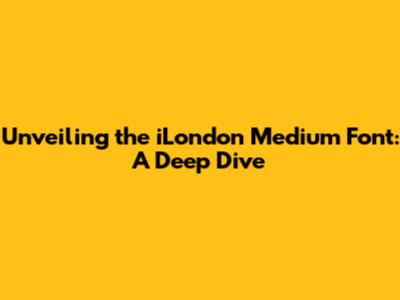
Unveiling The ILondon Medium Font: A Deep Dive
Hey guys! Ever stumbled upon the iLondon Medium font and wondered what the buzz is all about? Well, you're in the right place! We're diving deep into everything you need to know about this typeface – its characteristics, its uses, and why it's a solid choice for your design projects. This isn't just a dry rundown, either. We'll explore the font's personality and how it can bring your creative visions to life. So, buckle up, and let's get started on this iLondon Medium font adventure!
Exploring the Anatomy of the iLondon Medium Font
Let's get down to the nitty-gritty, shall we? The iLondon Medium font boasts a unique blend of elegance and readability. Its design is typically characterized by a clean and modern aesthetic, making it incredibly versatile. Think about those sleek, modern websites or the polished brochures that catch your eye. Chances are, a font like iLondon Medium is behind the scenes, working its magic. The font's strokes are often well-balanced, providing a great viewing experience, offering excellent legibility even at smaller sizes. The spacing between letters and words is carefully calibrated, so the text flows smoothly, making it easy on the eyes. This font's medium weight strikes a perfect balance between boldness and subtlety. It's not too heavy to overwhelm the reader, nor is it too light to be lost in the background. It's this versatility that allows iLondon Medium to adapt seamlessly to various design contexts, from digital interfaces to print materials. The overall feel is contemporary, giving off an air of sophistication and professionalism. Its design language is often described as friendly and approachable, making it a great choice for brands that want to create a positive user experience. The iLondon Medium font is available in multiple weights. This flexibility gives designers the freedom to emphasize specific elements. Imagine creating a layout where you want a particular heading to pop or a specific call to action to grab the reader's attention. With the different font weights, you have that flexibility at your fingertips. From headlines to body text, this font's versatility ensures consistency and a professional look. It can be used in a variety of design contexts. For example, in the realm of branding, it can be applied to logos, business cards, and websites. In publishing, the font can enhance the readability of books, magazines, and newspapers. The possibilities are really only limited by your imagination. The font's design often incorporates subtle details, like the curve of the "g" or the angle of the "e". These subtle features contribute to the overall visual appeal, making iLondon Medium a standout choice. In this way, the font isn't just about conveying information; it's about crafting an immersive visual experience for the user.
Characteristics and Design Elements
Alright, let's zoom in on those finer details. When you inspect an iLondon Medium font, you'll likely notice the attention to detail that sets it apart. The letterforms are often designed with clean lines and balanced proportions, giving it a modern feel. The "x-height" (the height of the lowercase "x") may be slightly higher than usual. This design choice often improves readability, especially in smaller sizes. The font's design may incorporate subtle variations in stroke weight. This detail adds visual interest without compromising clarity. A well-designed font avoids being too uniform. It will likely include variations in the curves and angles of each character. These subtle differences give the font its unique personality. The spacing between letters, or "kerning", is carefully adjusted to optimize readability. Good kerning is crucial to prevent words from looking cramped or too spaced out. A professional iLondon Medium font will pay close attention to this. Designers of iLondon Medium often put care into the design of punctuation marks. Each period, comma, and semicolon is styled to complement the letterforms. The result is a cohesive and harmonious design. If the font supports it, you might find a comprehensive set of special characters. These might include ligatures (where two or more letters are joined together), alternative glyphs, and symbols. These enhance the font's versatility and give designers more creative control. The overall design philosophy is aimed at combining functionality with aesthetics. The goal is to provide a user-friendly and visually appealing typeface. The result is a versatile font that can work well in many applications. With its attention to detail and modern appeal, the iLondon Medium font offers both readability and visual interest.
Where Can You Use the iLondon Medium Font?
So, where does this awesome font fit in? The iLondon Medium font is a true chameleon, ready to adapt to various design environments. It's a great choice for both digital and print applications. From websites and apps to brochures and posters, this font has you covered. Let's break it down, shall we?
Digital Design Applications
For digital designs, the iLondon Medium font shines on websites, apps, and user interfaces. Its clean design and readability make it perfect for displaying content on screens. The font is easily scalable, ensuring that your text looks crisp and clear regardless of the screen size. The font can also be easily integrated into user interface designs. The font's versatility lets you apply it in headlines, body text, or navigation menus, maintaining a consistent brand identity. When it comes to mobile apps, the font helps ensure a smooth user experience. The font will maintain its readability even on smaller screens. This quality makes it a great choice for apps that prioritize user engagement. The font's modern aesthetic works well with contemporary design trends. If you're looking for a font to match your website's clean, modern look, iLondon Medium is a perfect choice. The font is ideal for displaying content like blog posts, articles, and product descriptions, offering clarity and readability. Many designers also leverage this font for designing email campaigns, ensuring that your messages appear professional and easy to read across various email clients. With its focus on legibility and visual appeal, the iLondon Medium font is an excellent choice for a wide range of digital design projects.
Print Design Applications
Now let's talk print. The iLondon Medium font isn't just for screens; it's a solid choice for print materials as well. Its crisp and clean design translates beautifully onto paper, making it perfect for brochures, magazines, and other printed assets. Imagine designing a brochure. The font’s readability ensures that your message is easy to understand. The iLondon Medium font will make a great impression on the viewer. If you are creating a magazine layout, the font's clear design makes it suitable for both headlines and body text, keeping your content organized and reader-friendly. Consider the use in posters and advertisements. Its versatility allows you to make your text pop or to create a more subtle design, depending on your needs. The font also provides an excellent choice for corporate stationery. Using it for business cards, letterheads, and other business materials enhances your brand's image. In terms of books, it is an excellent font to use to make reading easy for the user. With its elegant and legible design, the iLondon Medium font provides a classic and professional look. Its versatility and adaptability mean it can work across different projects. Its ability to create a clear and cohesive design makes it an excellent choice for print design.
Tips for Using the iLondon Medium Font Effectively
Alright, let's talk about making the most of the iLondon Medium font. Knowing how to effectively use it can take your designs from good to amazing. Let's get some tips!
Pairing with Other Fonts
One of the most important things is pairing fonts. You want to create a harmonious visual experience. The iLondon Medium font pairs well with a variety of other fonts. It's often used with sans-serif fonts to create a modern and clean design. These combinations work very well in headlines and body text. For a more sophisticated look, pair the font with a classic serif font. This combination adds a touch of elegance. You should consider the mood you are trying to create. If you're going for a bold and dynamic look, try pairing the font with a bold sans-serif font. If you want a more subtle look, pair it with a light or thin font. Ensure that the fonts complement each other. Avoid pairing it with fonts that are too similar or compete for attention. Make sure the fonts are different enough to be distinguishable. Test out your pairings to see what looks best. Experiment with the different weights and styles of the iLondon Medium font to create a balanced design.
Color and Contrast
Color and contrast are key. The iLondon Medium font works well with a wide range of colors. But the contrast between the text and the background matters the most. You want to make sure the text is readable. When placing the font on a light background, use a dark color for the text, and vice versa. This will increase readability. Make sure to consider your target audience. Your color choices should align with your brand's identity and resonate with your audience. For example, a minimalist design might use a black font on a white background. More complex designs might benefit from a more extensive palette. Use the font with different colors, and see what the results are. Ensure that there's enough contrast between the text and the background. Avoid using colors that are too similar. Always test your color combinations before you finalize them. Check to see how your colors and the font look on different screens and devices. With thoughtful color choices and good contrast, the iLondon Medium font will deliver a compelling and visually appealing experience.
Typography Best Practices
Let's get down to some typography best practices. Following these will significantly improve the quality of your designs. Remember that good typography is key to effective communication. Start by choosing the right font size. The size should be legible and appropriate for the context. This applies whether the context is headlines or body text. Consider the line spacing, or "leading". Leading can greatly influence readability. Use an appropriate amount of leading to prevent text from looking cramped. You should also pay attention to the letter spacing, or "tracking". Adjusting the tracking can enhance the visual appearance of your text. Don't forget about the "kerning"! Make sure letters are spaced appropriately, especially in headlines. Always be mindful of text alignment. Align the text to create a clean, organized layout. Avoid long lines of text, especially in body text. Use shorter line lengths to improve readability. Don't be afraid to use whitespace. Whitespace will help to create balance and draw attention to important elements. Test your design across different devices to make sure it looks good on all of them. These best practices will enhance the readability and the visual impact of your designs. Combine them with the use of the iLondon Medium font to make a strong design.
Conclusion: Why Choose the iLondon Medium Font?
So, why choose the iLondon Medium font? Well, it's pretty simple: it's a reliable, versatile, and visually appealing choice. Whether you're a seasoned designer or a newbie, this font can significantly elevate your designs. Its clean lines and modern feel give your work a professional edge. Its adaptability makes it ideal for a wide range of projects, from websites to print materials. Its legibility ensures that your message is clear and easy to understand. Plus, its versatility makes it easy to pair with other fonts. In short, the iLondon Medium font is a great choice for any project needing a modern and readable typeface. So go out there and experiment with it! You might be surprised at what you can achieve. Happy designing, guys!